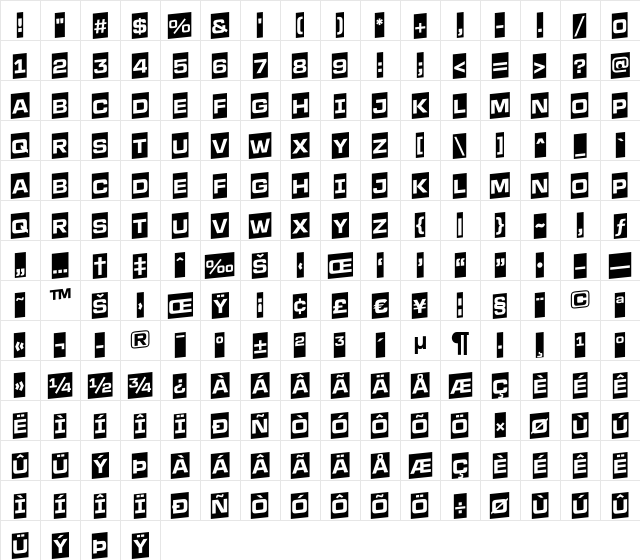
a_LineaSansCmUp Bold Free Font
a_LineaSansCmUp Bold
Style: Bold
Version: Version 1.2; 1998
Designer: W.Chufarofsky & M.Slutsker
Year: 1998 (Thu, 3rd Dec 1998)
Complete a_LineaSansCmUp Bold glyph index. Displaying only characters natively supported by a_LineaSansCmUp Bold font.
Design Context for a_LineaSansCmUp
a_LineaSansCmUp is a composed and adaptable typeface that performs quietly and consistently across a wide range of design contexts. Its bold stroke weight gives it real presence on the page.